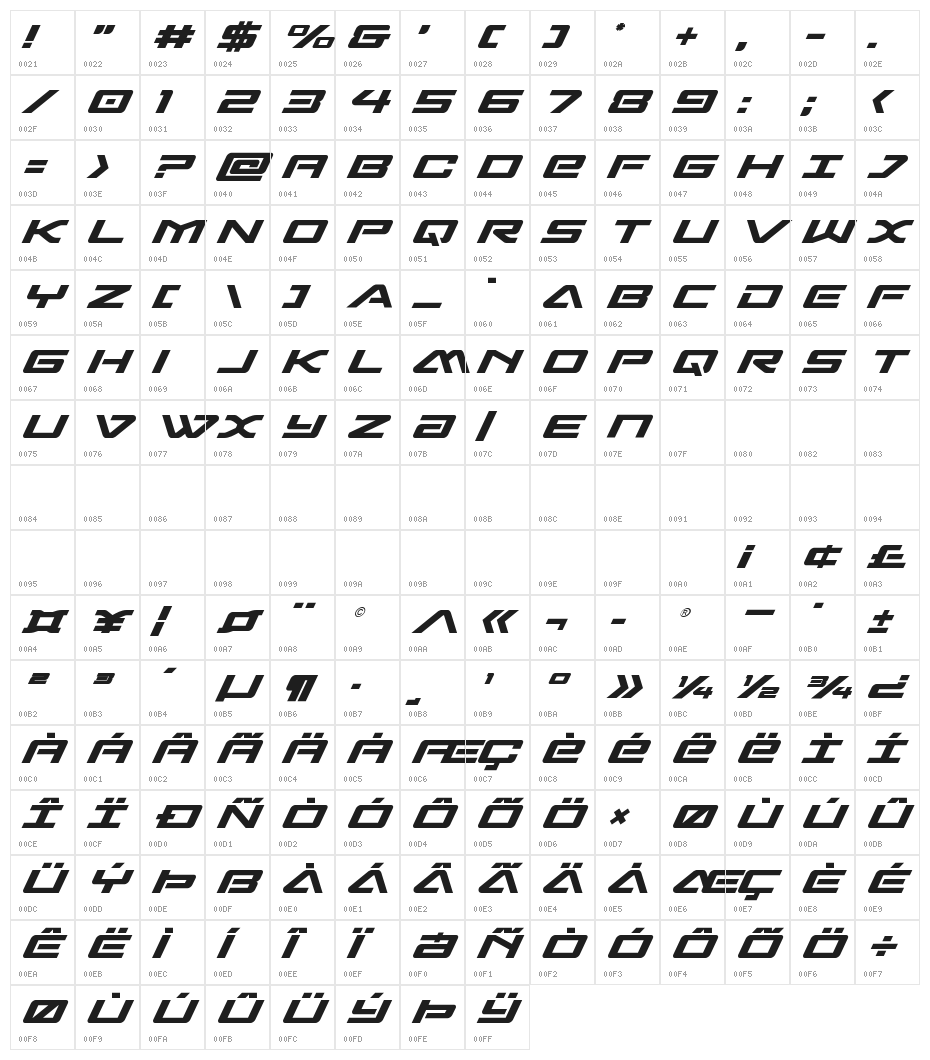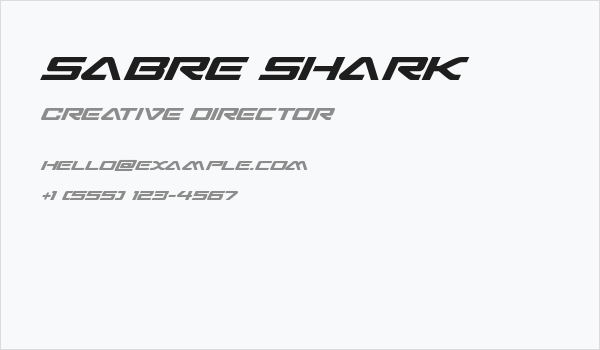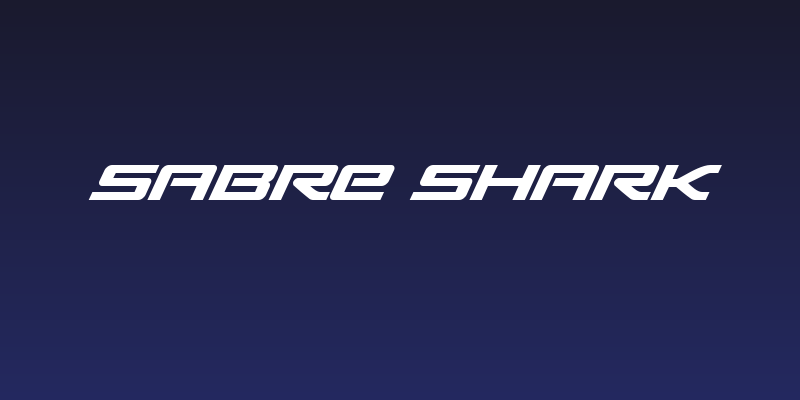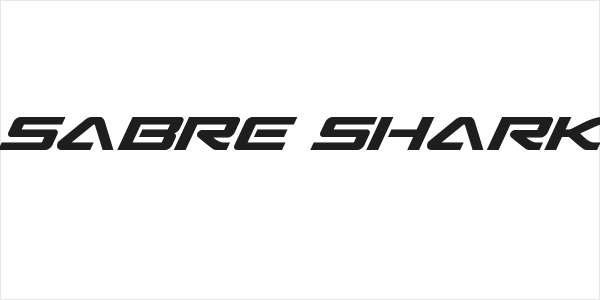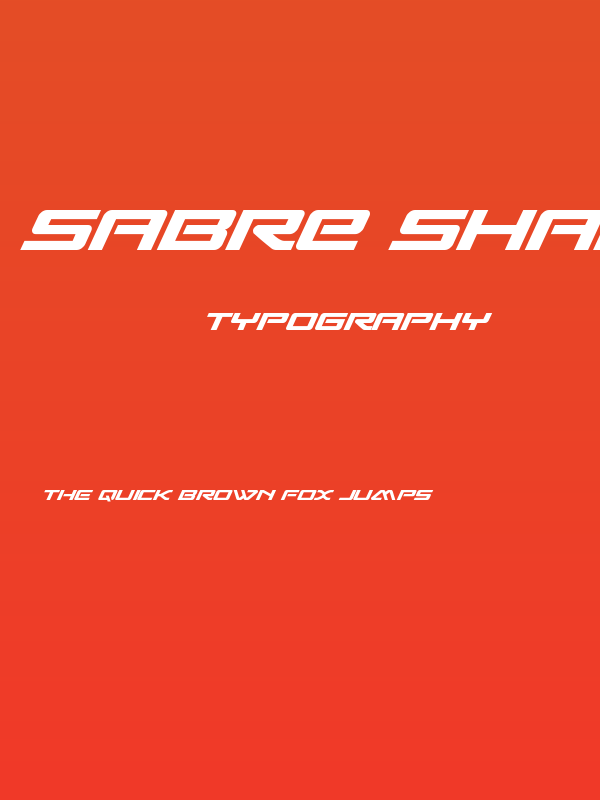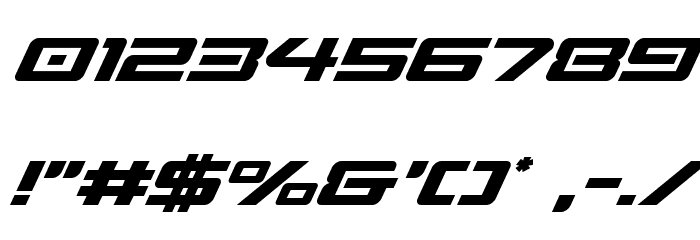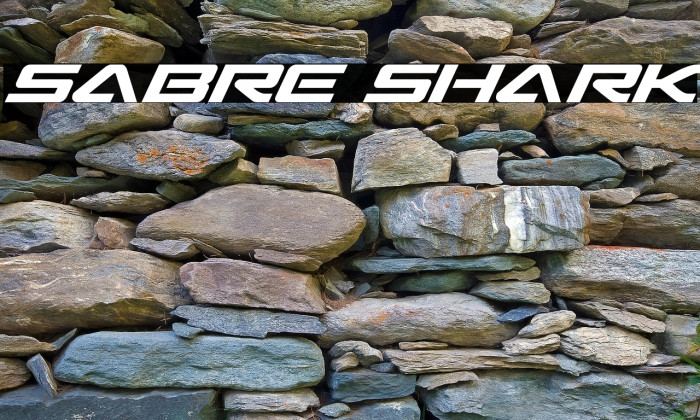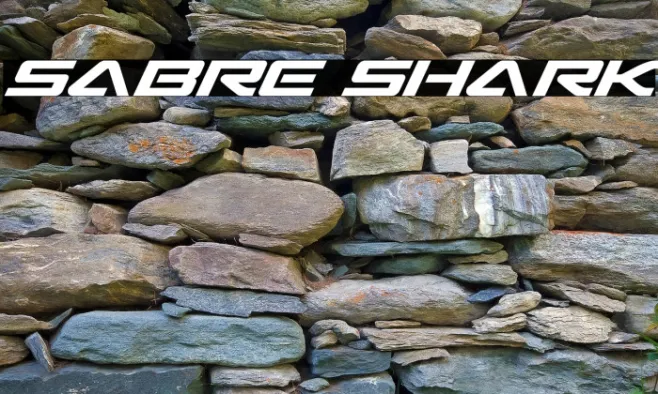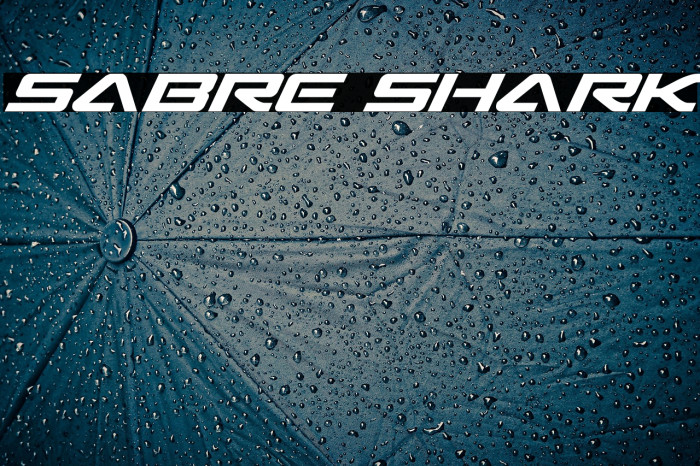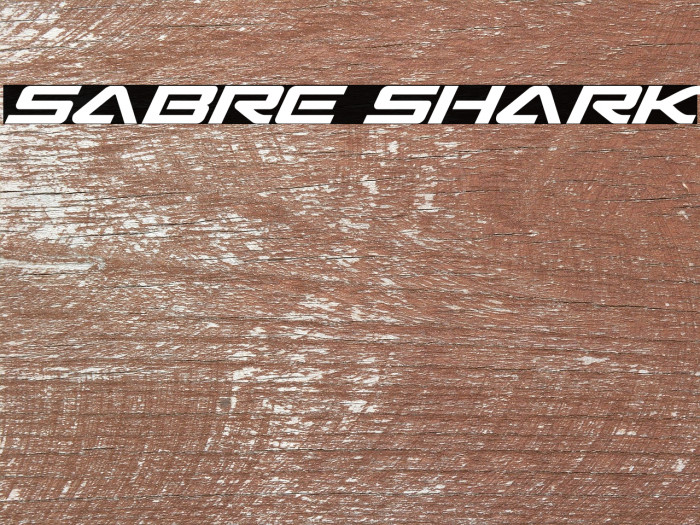
Sabre Shark Font
Sabre Shark Description
This font features a bold and futuristic design with sharp, angular edges and a dynamic slant, giving it a sense of motion and speed. The uppercase letters are distinctively geometric, with a consistent stroke width that enhances its modern appeal. The lowercase letters maintain the same angular style, ensuring uniformity across the typeface. Numbers are equally bold and stylized, making them stand out with clarity. Special characters are designed to match the overall aesthetic, providing a cohesive look. This font is ideal for projects that require a strong, impactful presence.
| Proposed Projects | Ideal for sci-fi themed designs, video game graphics, technology branding, and sports team logos. |